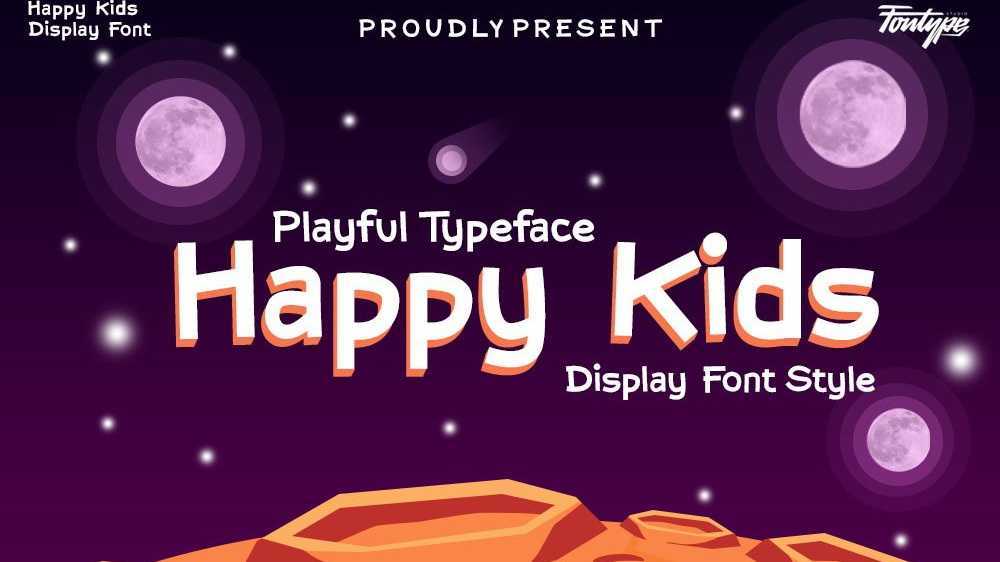
Download Happy Kids font, a fun and playful typeface. With a really fun Asteroid / outer space feel, perfect for events, packaging projects, and anything else that has to do with fun.